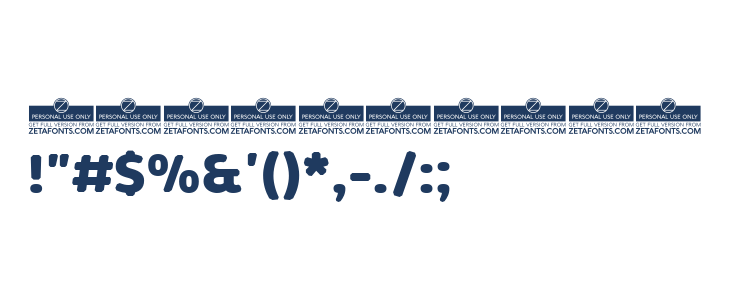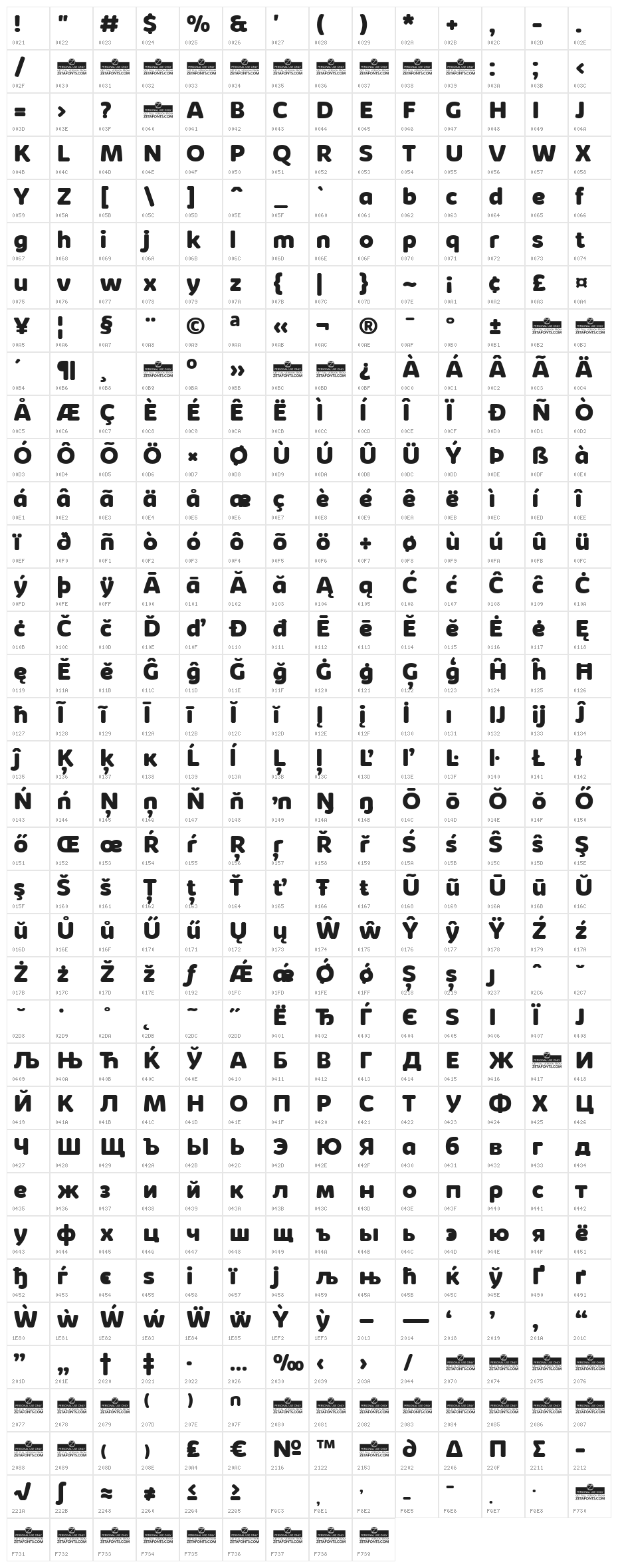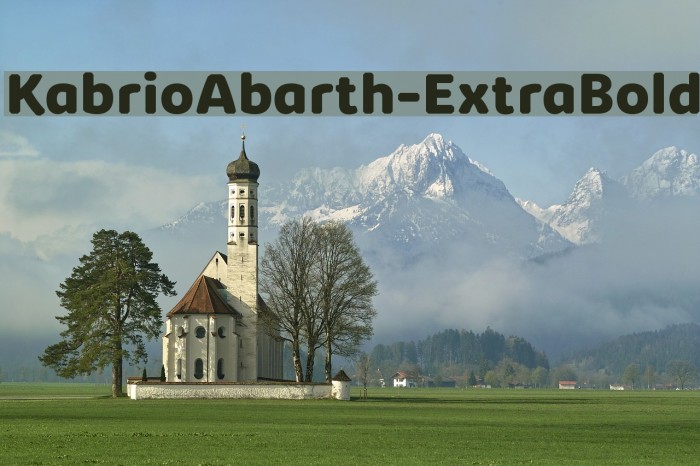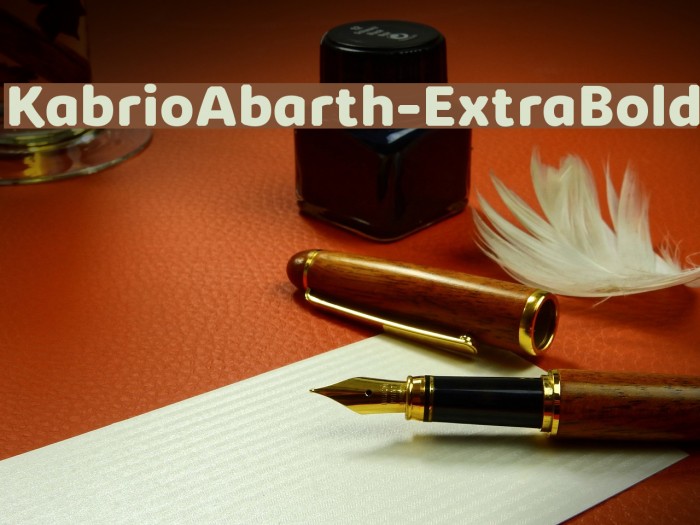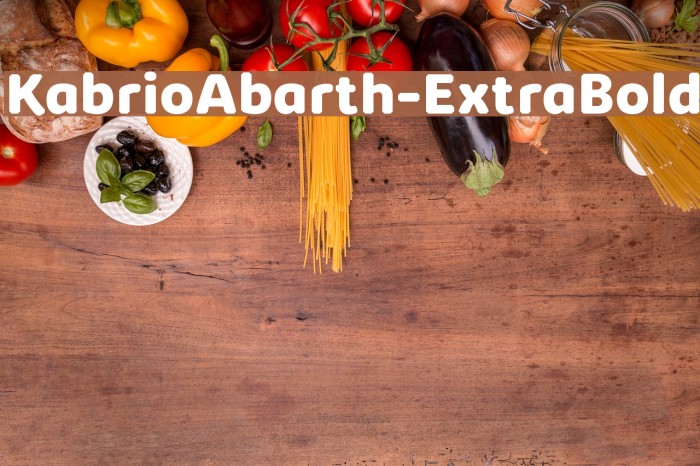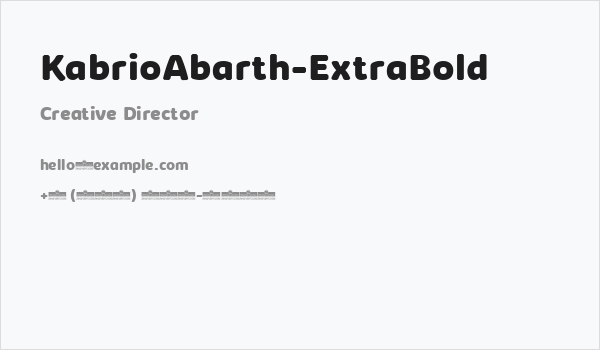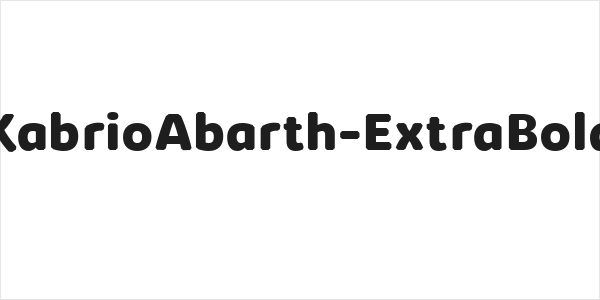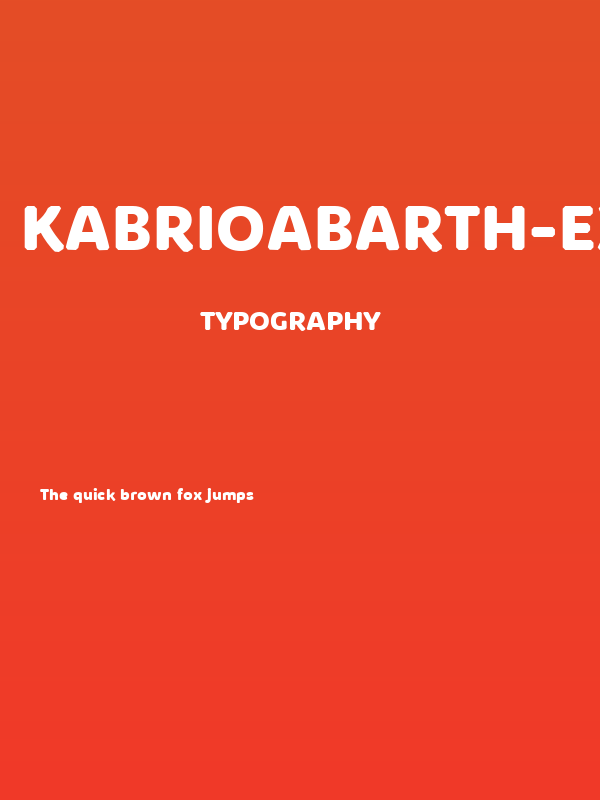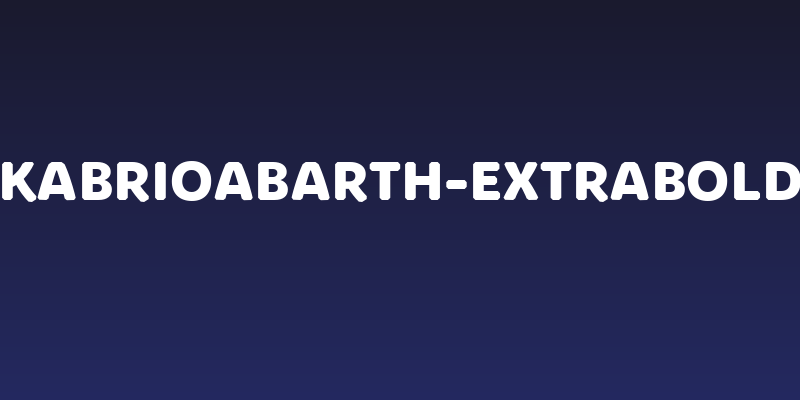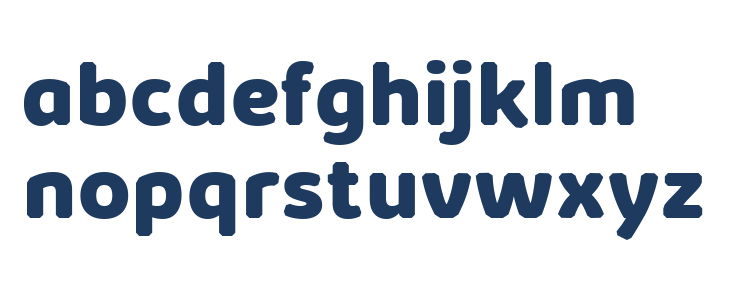
KabrioAbarth-ExtraBold Font
KabrioAbarth-ExtraBold Description
This font exhibits a bold and rounded style, characterized by its thick strokes and smooth curves. The uppercase and lowercase letters maintain a consistent weight, providing a uniform appearance. The rounded terminals and lack of sharp edges give it a friendly and approachable look. The numerals and special characters are designed to match the overall aesthetic, ensuring cohesion across different text elements. Its boldness makes it stand out, while the rounded features soften its impact, making it versatile for various design needs.
| Proposed Projects | Ideal for branding, headlines, posters, and packaging design where a bold, friendly appearance is desired. |